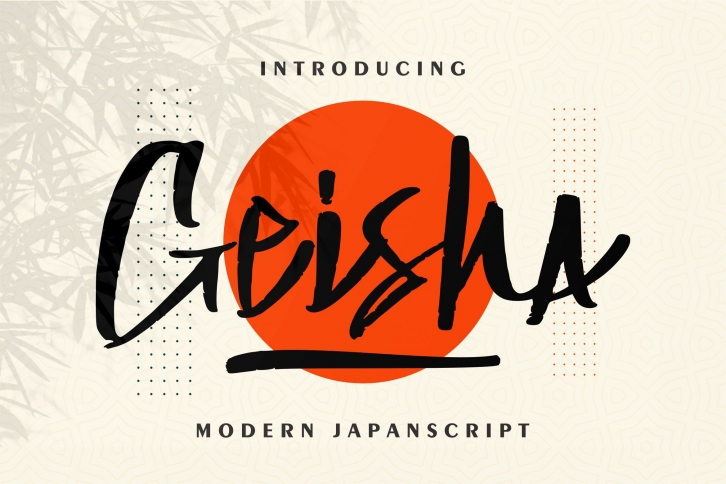
Geisha is a modern, chic and quirky display font. Add it to your Halloween crafts, horror movie posters, t-shirts and anything else that requires a spectacular look.